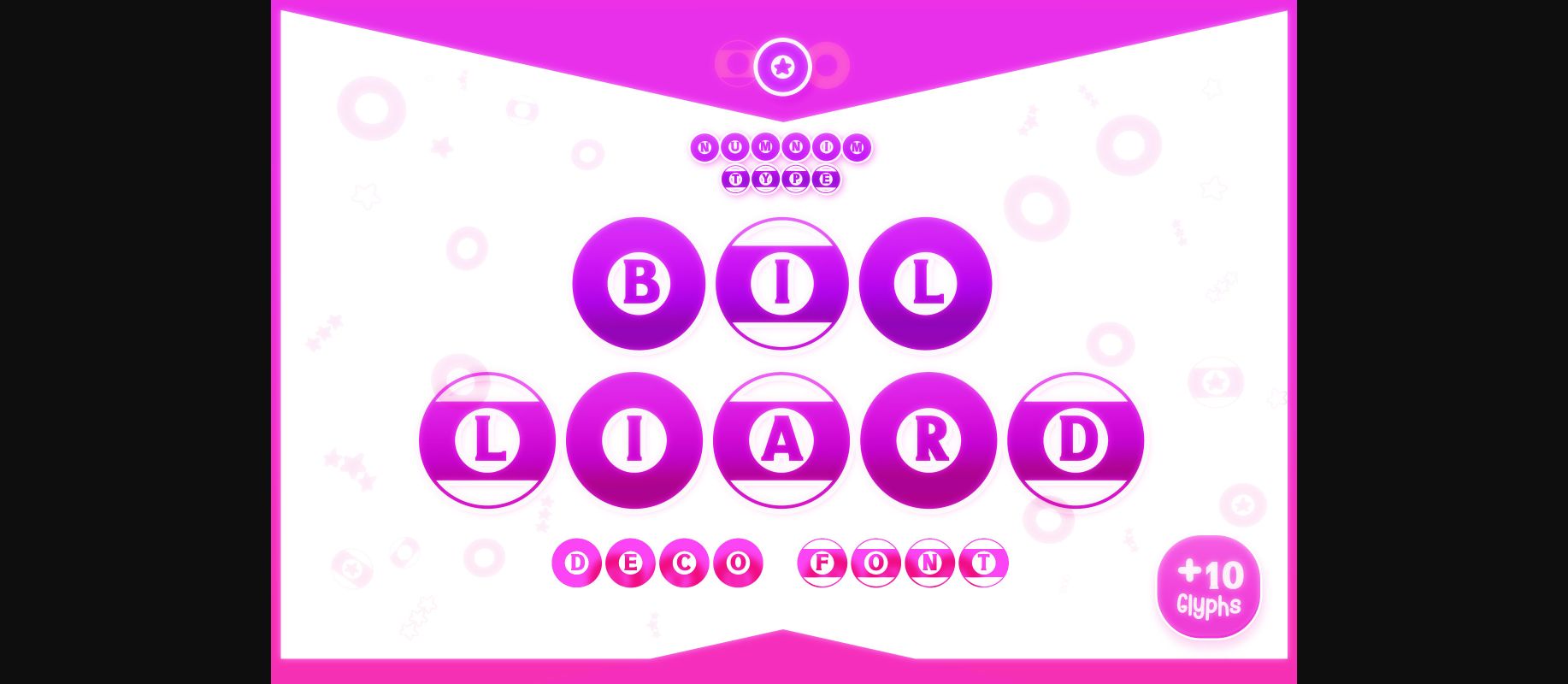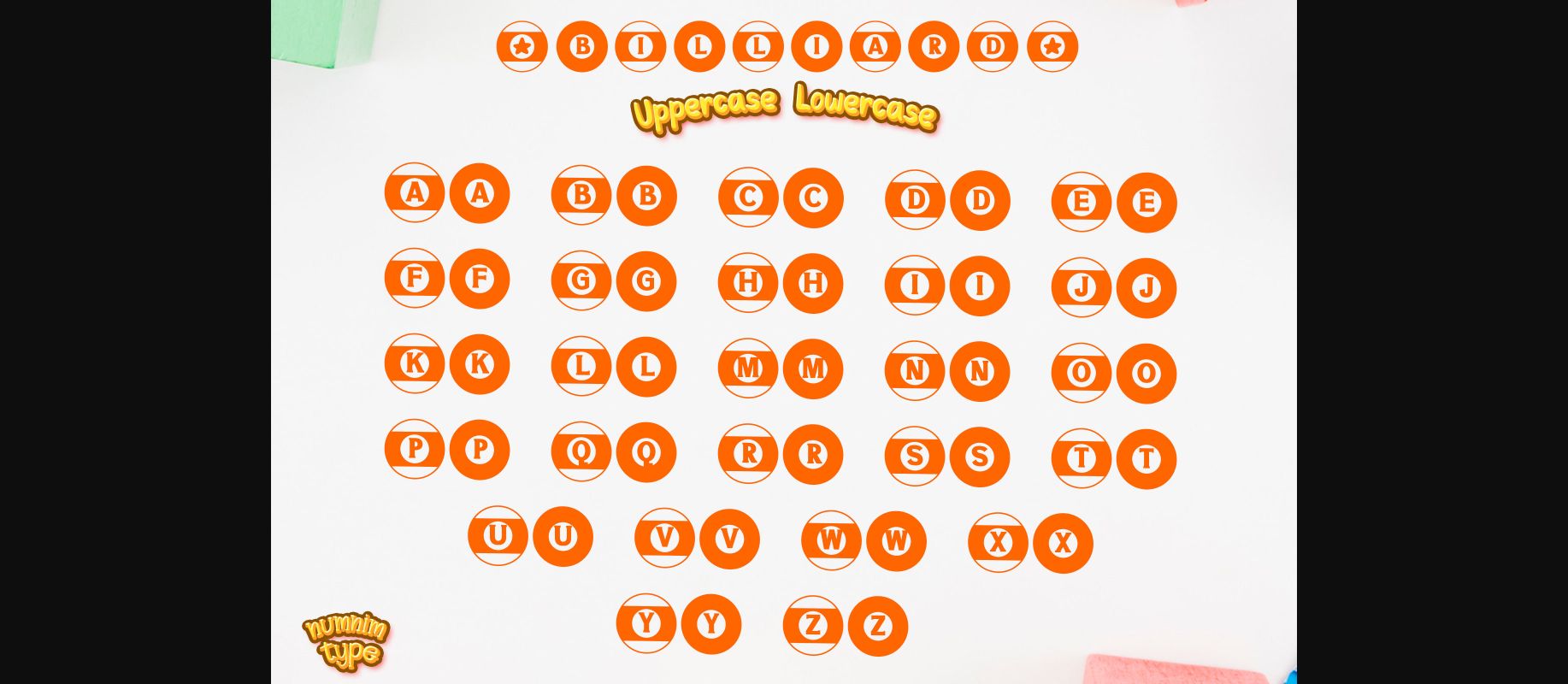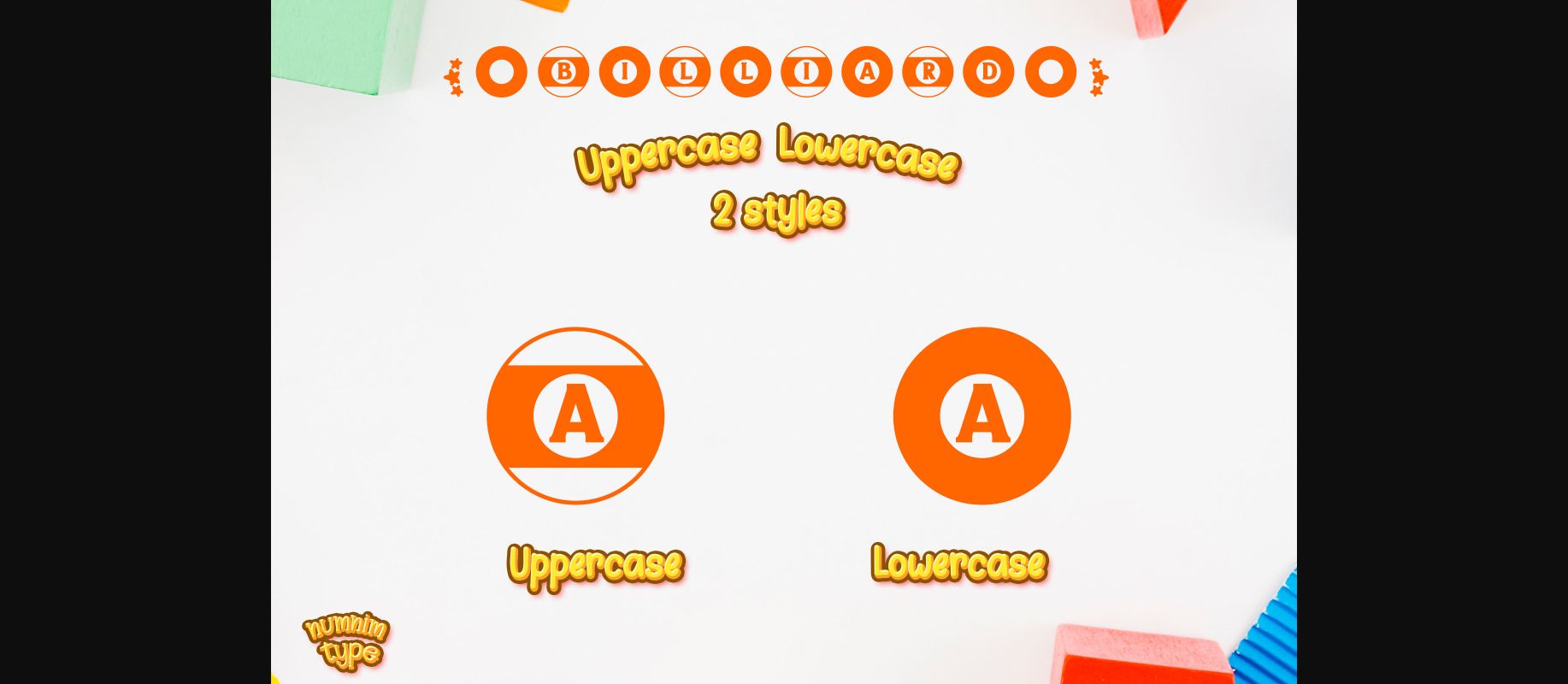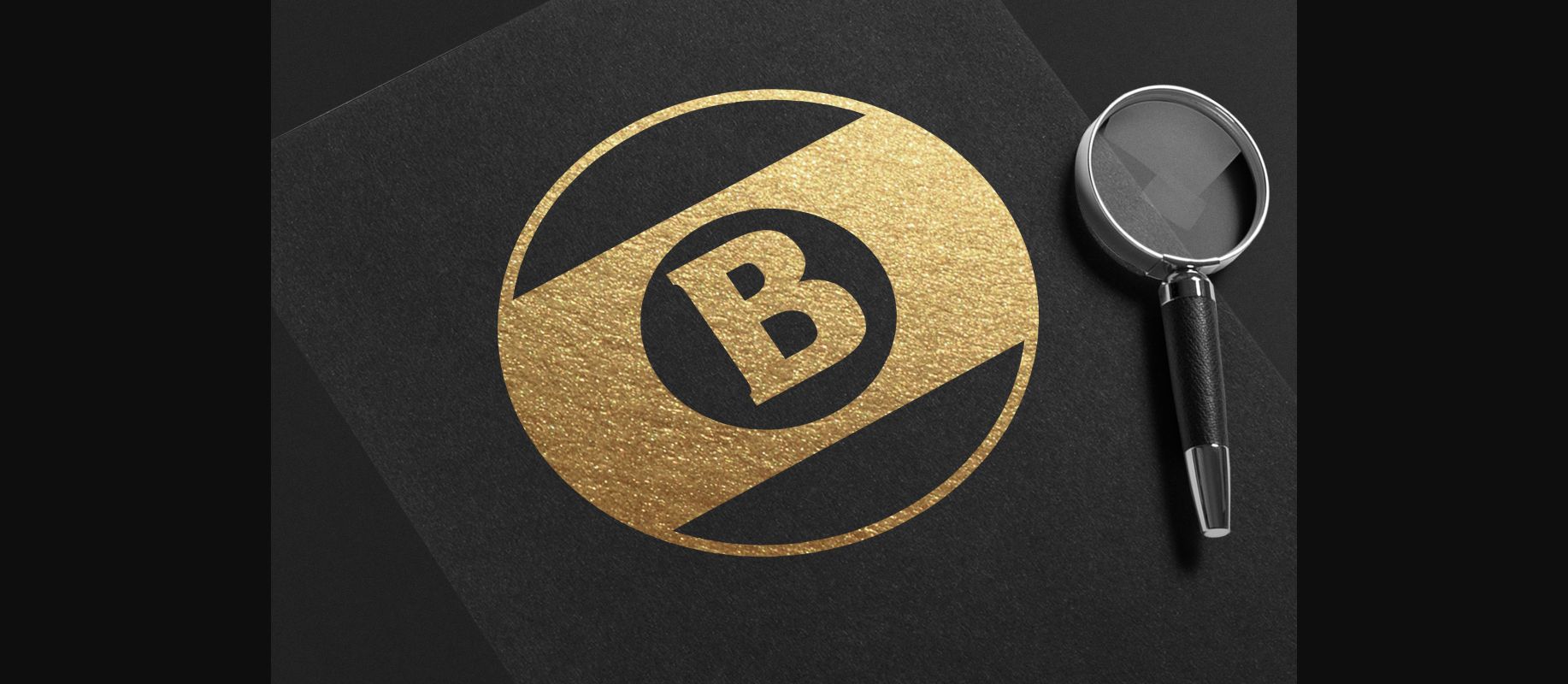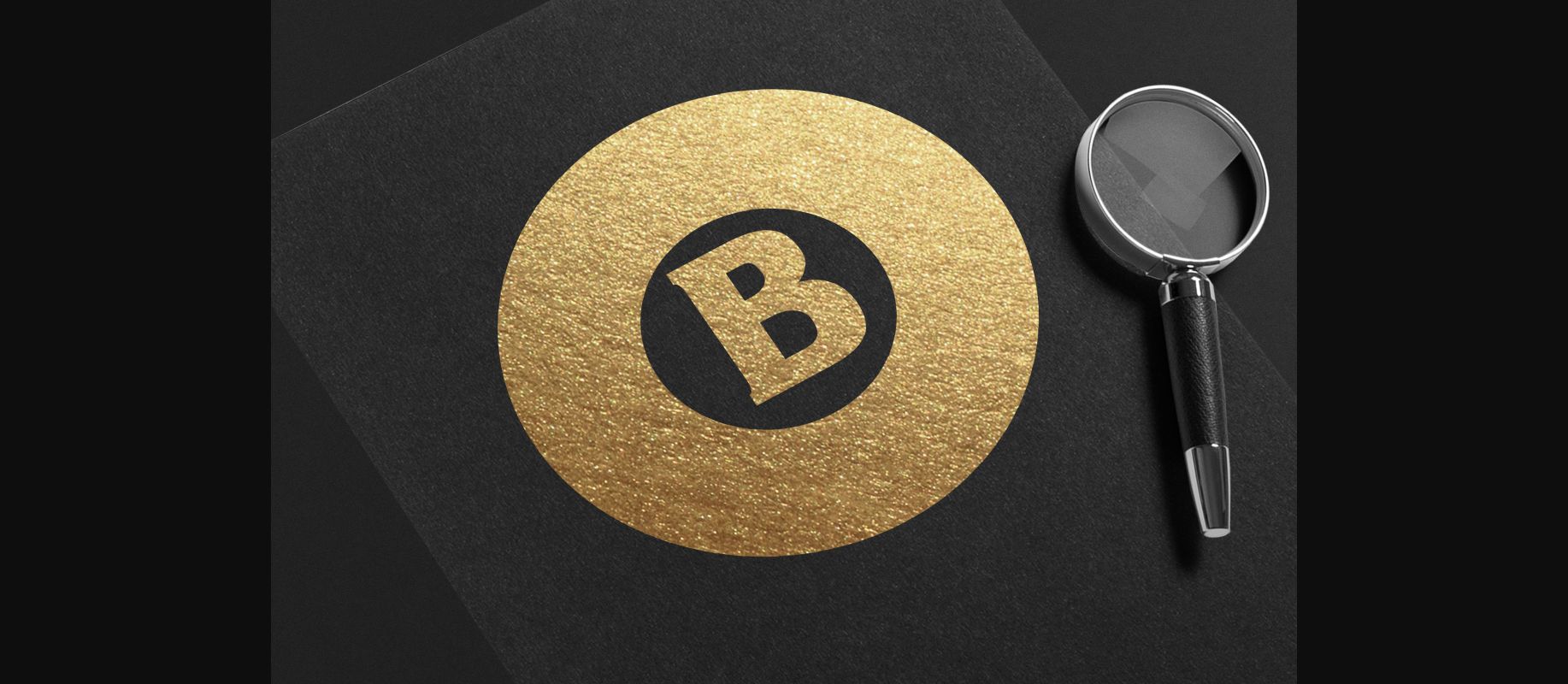
About Billiard Font
Billiard is a cool and uniquely crafted decorative font. Its fun and playful characters make it the perfect font for stickers, mugs, t-shirts, ornaments, Billiard, Pool or Snooker’s club’s cards, event invitations, and many more! This font is PUA encoded which means you can access all glyphs and swashes with ease!